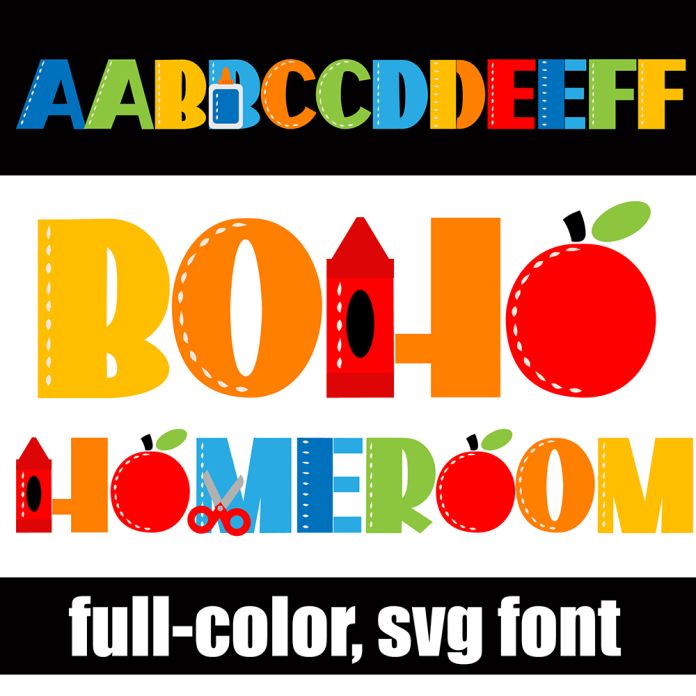
This full-color font features a blocky sans serif with stitches and several lowercase items with school supplies. There is an alt case with additional colors you can access through your system's character map. This font works best for titles, displays, posters and more. Please note color fonts will show as black in non compatible programs. This font type is compatible with Silhouette Studio.